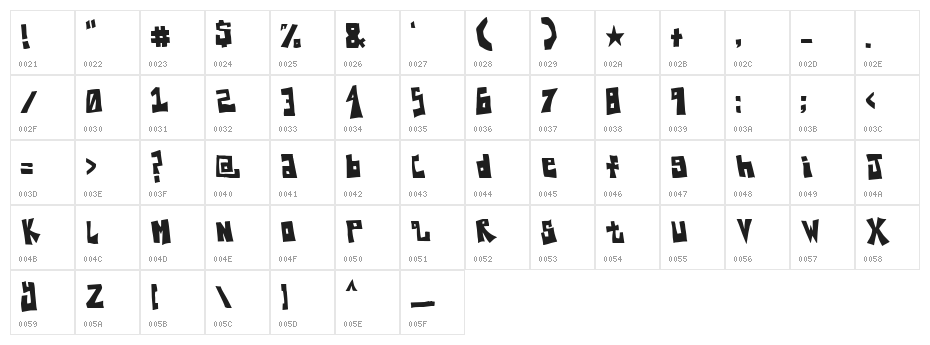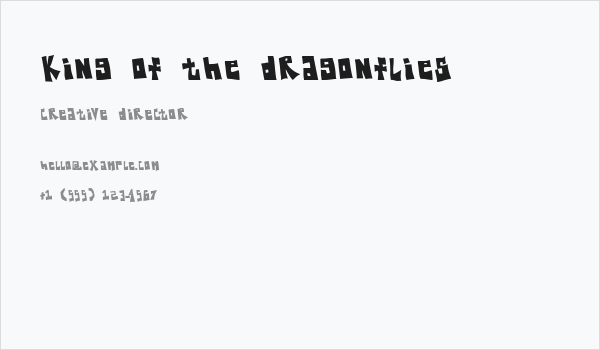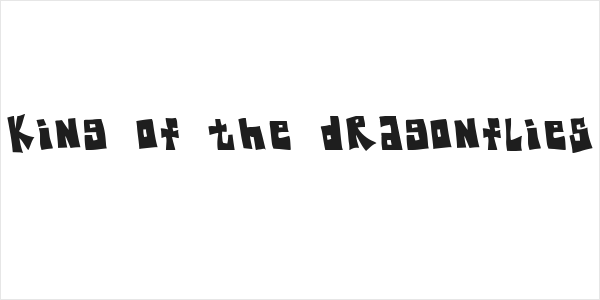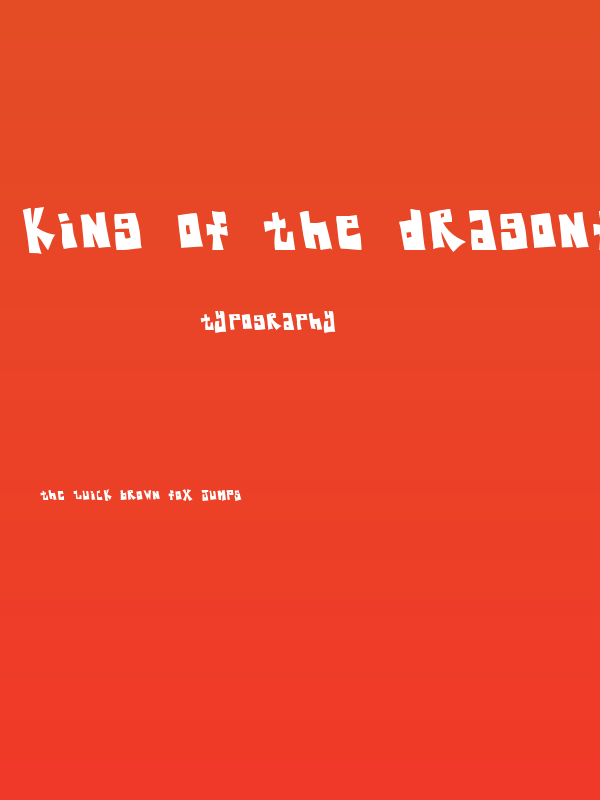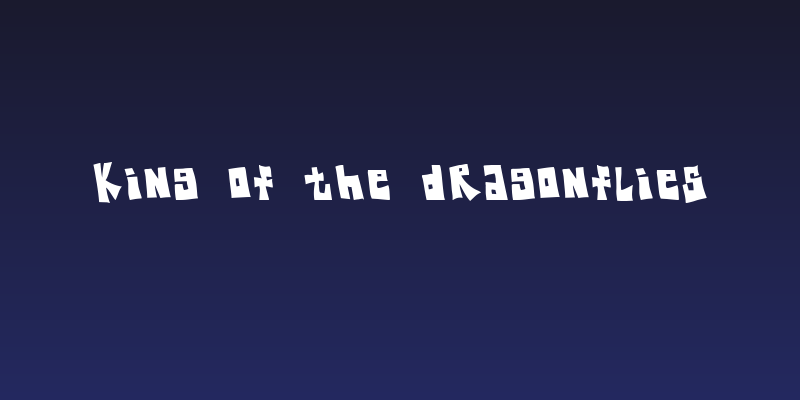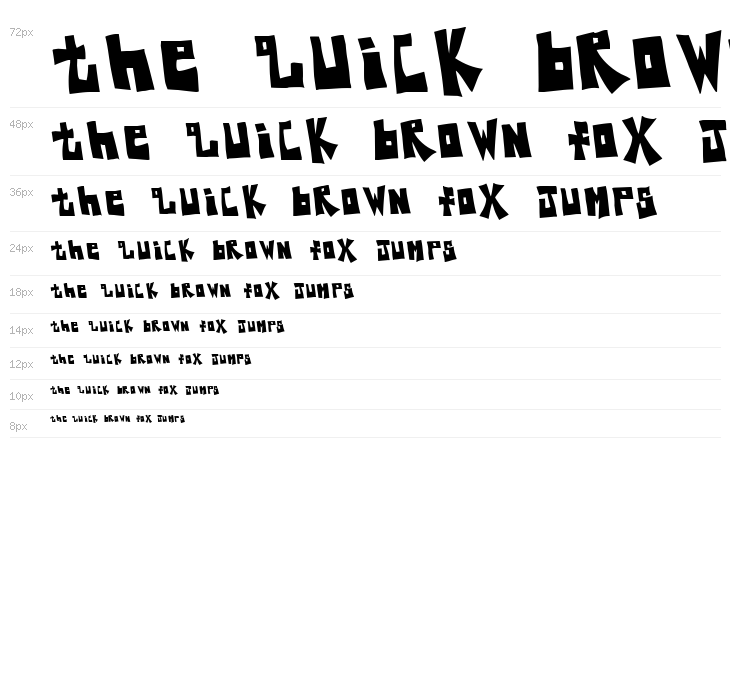
King Of The Dragonflies Font
King Of The Dragonflies Description
This font features a bold, angular design with a distinct, edgy appearance. The characters are highly stylized, with sharp, jagged edges and a slightly irregular form that gives it a dynamic and energetic feel. The uppercase and lowercase letters maintain a consistent style, with a strong emphasis on geometric shapes. The numbers and special characters follow the same design principles, ensuring a cohesive look across all elements. This font's unique style makes it stand out, perfect for projects that require a bold and unconventional aesthetic.
Overall StyleModern, Edgy
Proposed ProjectsIdeal for posters, album covers, video game titles, and any project needing a bold, edgy look.